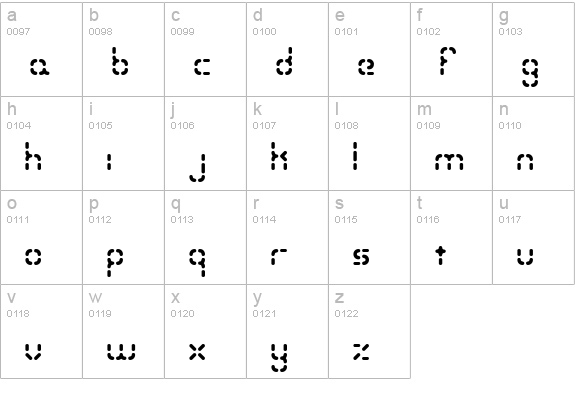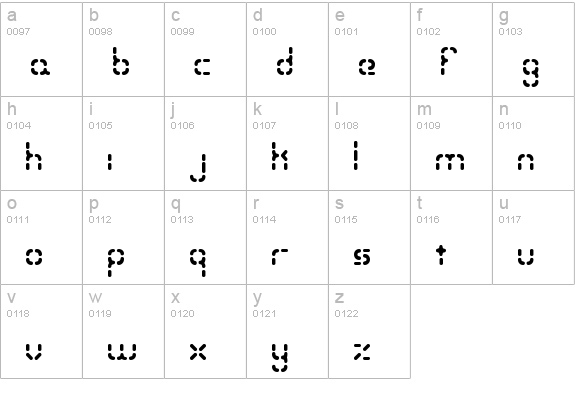
Bleak Segments BRK Font Details
Bleak Segments BRK font is a modern and edgy typeface that exudes sophistication and style. Its sharp lines and bold presence make it perfect for a wide range of design projects, from branding to editorial layouts. The unique segments in each letter add a dynamic and eye-catching element to any text, making it stand out from the crowd. This versatile font is freely available to download at FontsMarket.com, allowing designers and creatives to add a touch of modern elegance to their work without any cost. Whether you're looking to create a sleek logo, eye-catching poster, or stylish website design, Bleak Segments BRK font is sure to make a lasting impression. Download it today and elevate your design projects to the next level.